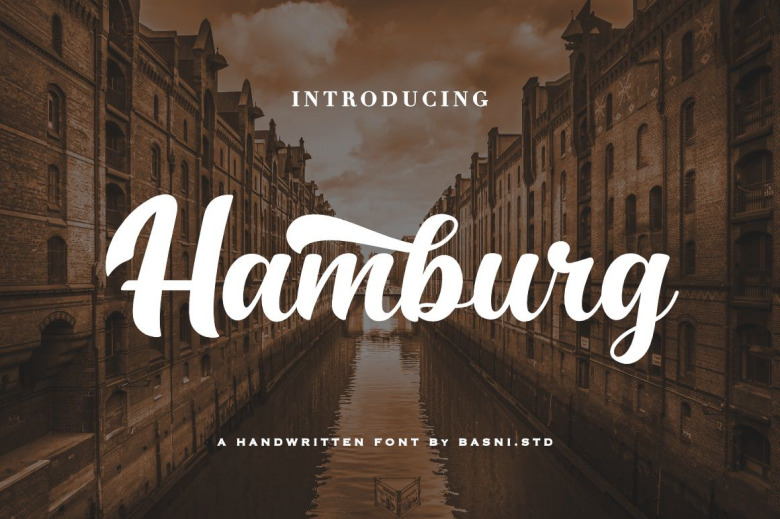
Hamburg Font
Hamburg Script Font is perfect for branding, websites, design invitation, and editorial designs. Includes all upper and lower case letters, multilingual support, punctuation, binding and initial and final swash. everything can be easily accessed using software that supports OpenType.
Hamburg Script Font